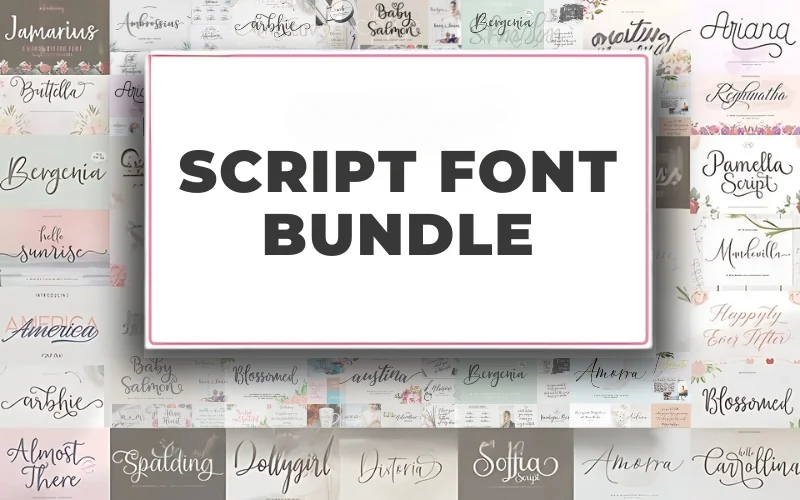
Many font bundles come with licensing restrictions, limited styles, or little room for customization. The Script Font Bundle solves that — a curated collection of elegant script typefaces designed for flexibility and commercial use.
Overview
Script Font Bundle includes 59 script and hand-lettering fonts (calligraphy, signature, brush lettering, and hand lettering). Each font features hundreds of glyphs — alternates, ligatures, swashes, and stylistic sets — so you can achieve custom, polished typography for branding, merchandise, social media, print, and more.
59 fonts (styles shown below):
- Almost There
- Ambrossius
- America Font Duo
- Amorra
- Arbhie
- Ariana
- Arieteline
- Austina
- Baby Salmon
- Beautymoon
- Bergenia Font Duo
- Blossomed
- Bottom Love
- Buttella
- Hello Carrolina
- Distoria
- Dollygirl
- Fallery
- Hello Gorgeous (Font Trio)
- Girl Love
- Glaudia
- The Glisten
- Happyly Ever After
- Heaven Children
- Houlding
- Jamarius
- Mandevilla
- Pamella
- Ratherbe
- Reginatha
- Hello Sherilyn
- Soffia
- Spalding
- Hello Sunrise
- Sweet Bloom
(59 fonts across 35 typographic families)